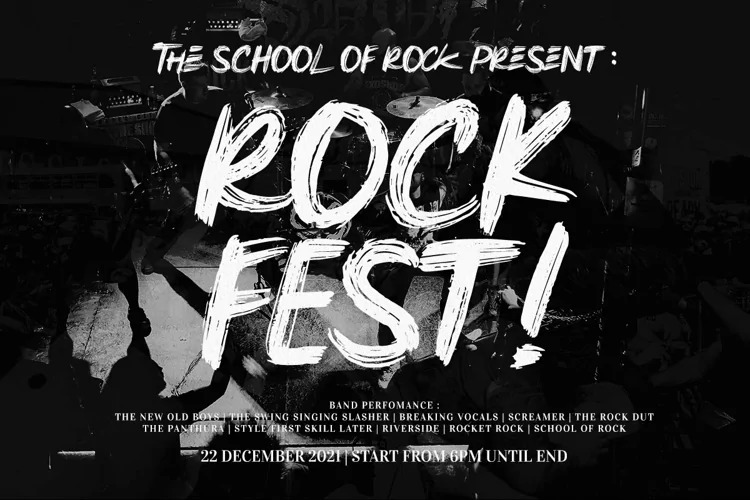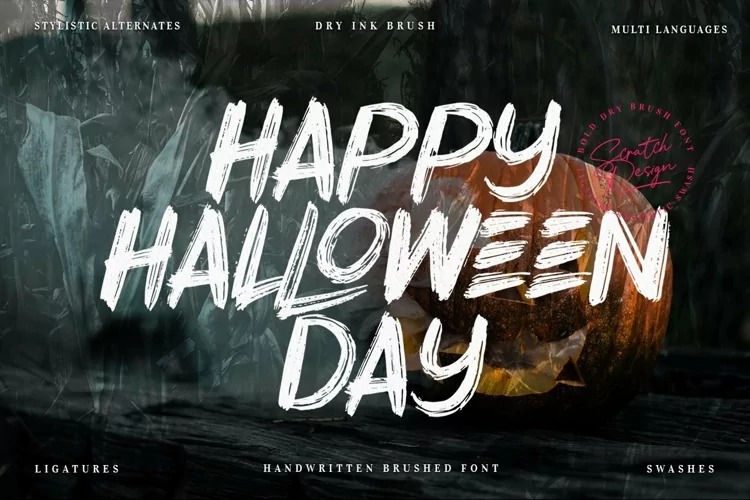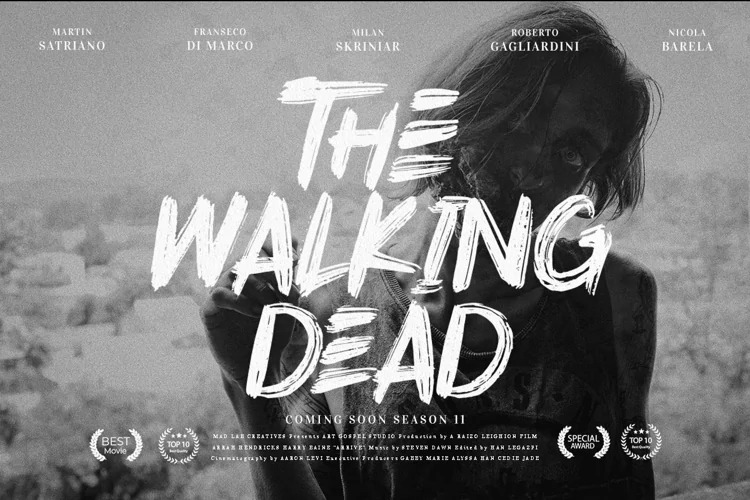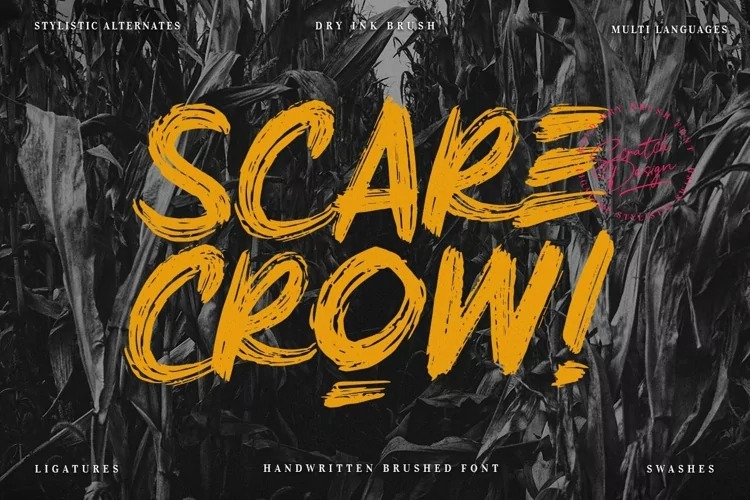
Scarecrow Font
Scarecrow Brush Font
This is a supercharged brush font style, street-wise brush font bursting with energy. It’s designed and shared by Scratch Design. An authentic dry ink brush touches in every character of this font, the realistic dry ink brush effects will be suitable for any design such as poster band, clothing design, product design, packaging, label design, film/movie title, quote, etc.